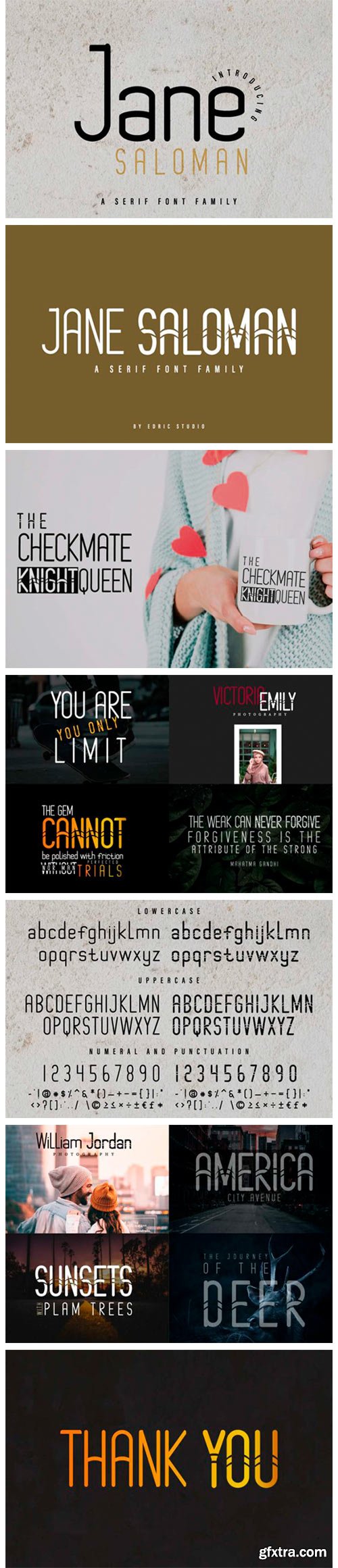
Jane Saloman Font
Jane Saloman is a minimal and neat sans serif font. It can easily be matched to an incredibly large set of projects, so add it to your creative ideas and notice how it makes them stand out!